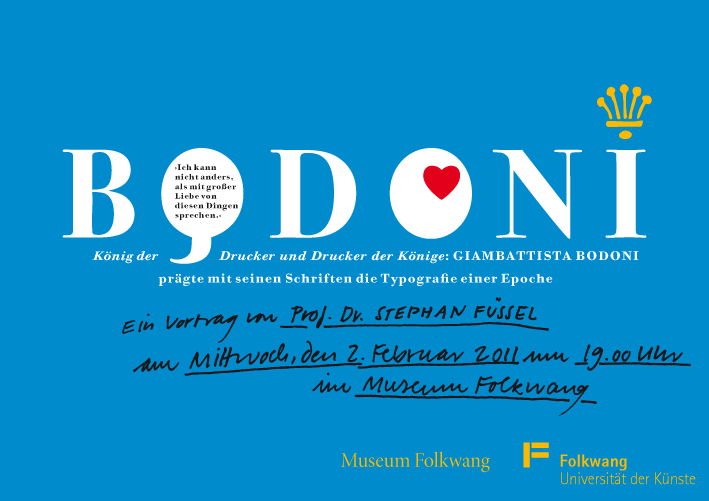
Füssel Bodoni lecture in Essen
Bodoni Book
Prof. Ralf de Jong just informed me about an exciting lecture on Wednesday, February 2nd, in Essen (Germany). Prof. Dr. Stephan Füssel will speak about the life and work of Giambattista Bodoni, in particular the Manuale Tipografico. Füssel is responsible for the recent republication of Bodoni’s Manuale Tipografico at Taschen, Manual of Typography. I will be in San Francisco on February 2nd, but I saw a similar presentation of Füssel’s at the Gutenberg Museum in Mainz, back in November. I also bought the Manual of Typography reprint at that event. Whether you are interested in Bodoni, in type specimen, or in the process behind the Taschen Manual of Typography, this talk should have something for everyone in the typography and book design fields. I encourage everyone in the Ruhrgebiet—or within easy access of it—to attend the lecture. The German information about the event, as well as an image of the event’s poster, follow below…
Bodoni Vortrag Einladung
Gerne möchte ich Sie einladen zu einem Vortrag im Museum Folkwang (Gartensaal) am 2. Februar 2011 um 19 Uhr s.t. Prof. Dr. Stephan Füssel, Leiter des Instituts für Buchwissenschaften an der Johannes-Gutenberg-Universität Mainz und international renommierter Forscher im Bereich der Druckgeschichte spricht über Leben und Werk von Giambattista Bodoni und insbesondere dessen Meisterleistung, das M A N U A L E  T I P O G R A F I C O. Das von Prof. Füssel im Taschen-Verlag herausgegebene Reprint des Manuale Tipografico wird bei dieser Gelegenheit vorgestellt. Ich freue mich sehr auf eine spannende Begegnung von Typografie und Wissenschaft!